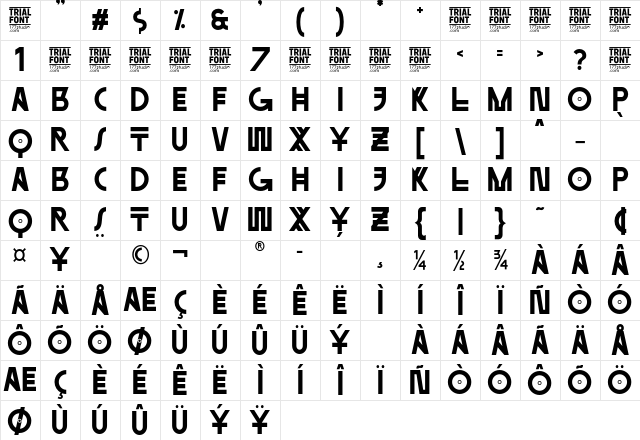
Essential Economy Demo Bold Free Font
Essential Economy Demo Bold
Foundry: 177Studio.com
Designer: 177Studio.com
Design Context for Essential Economy Demo
Essential Economy Demo is a composed and adaptable typeface that performs quietly and consistently across a wide range of design contexts. Its bold stroke weight gives it real presence on the page.